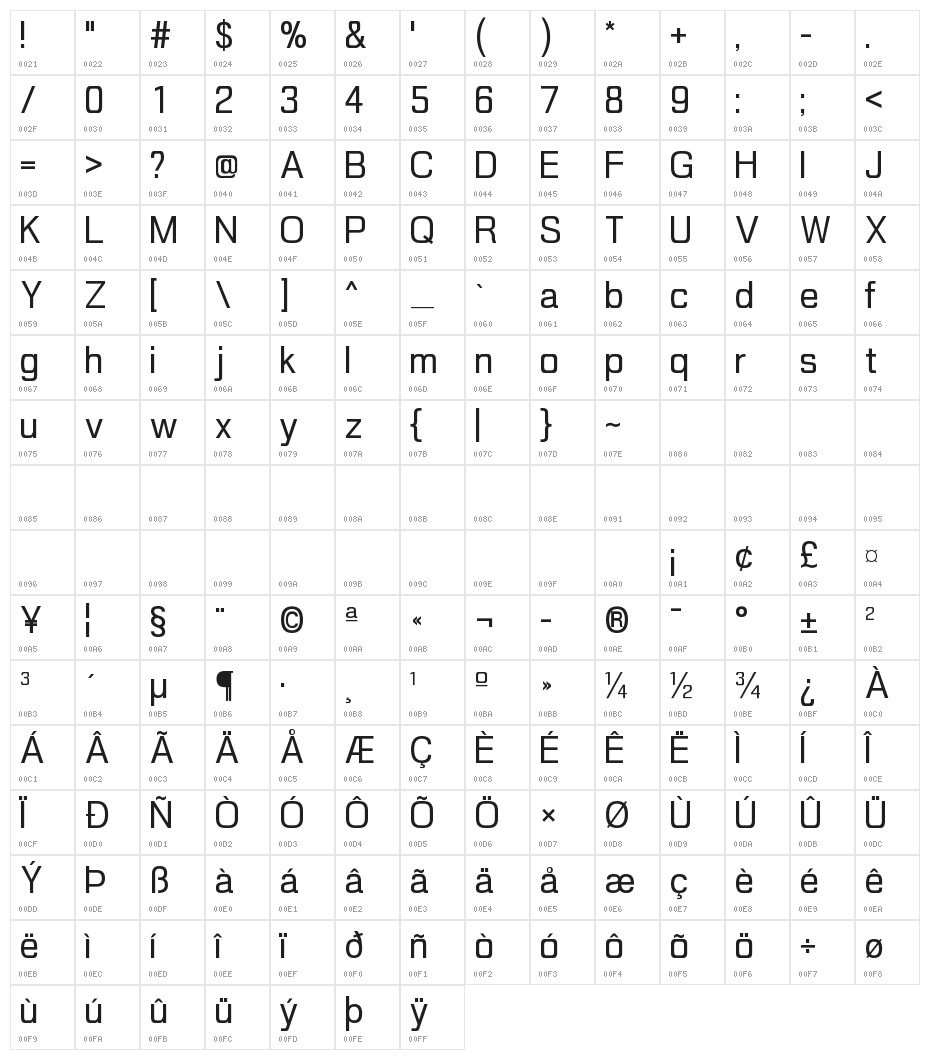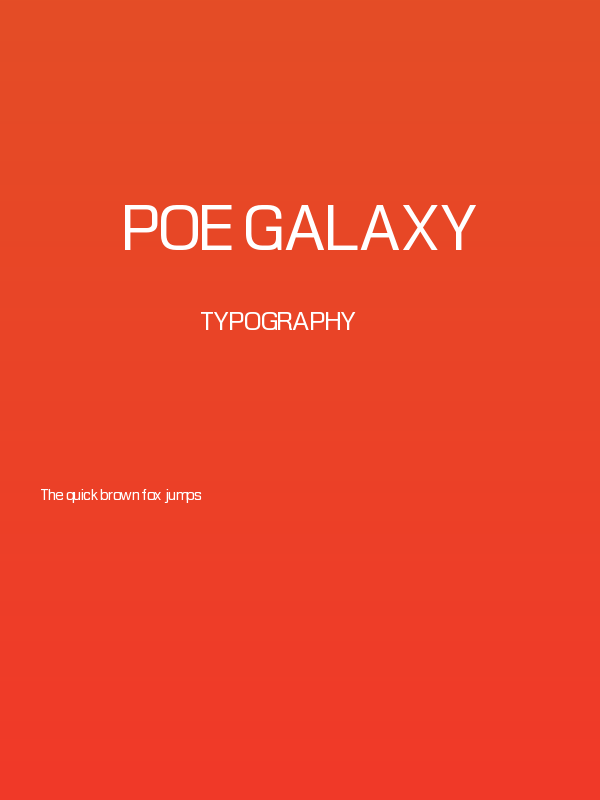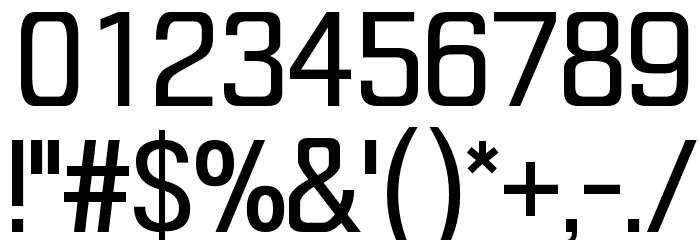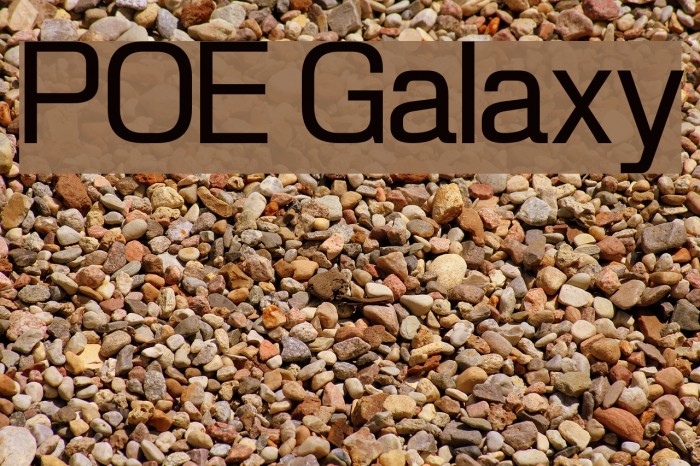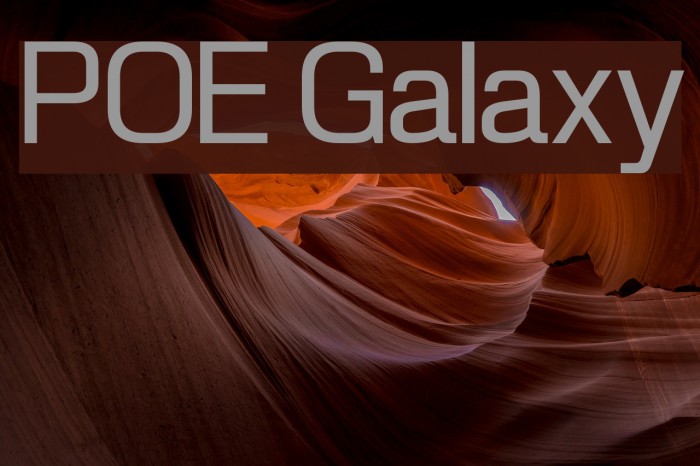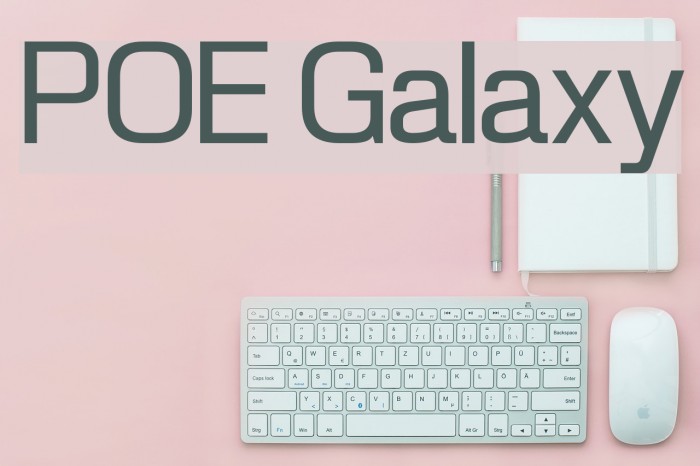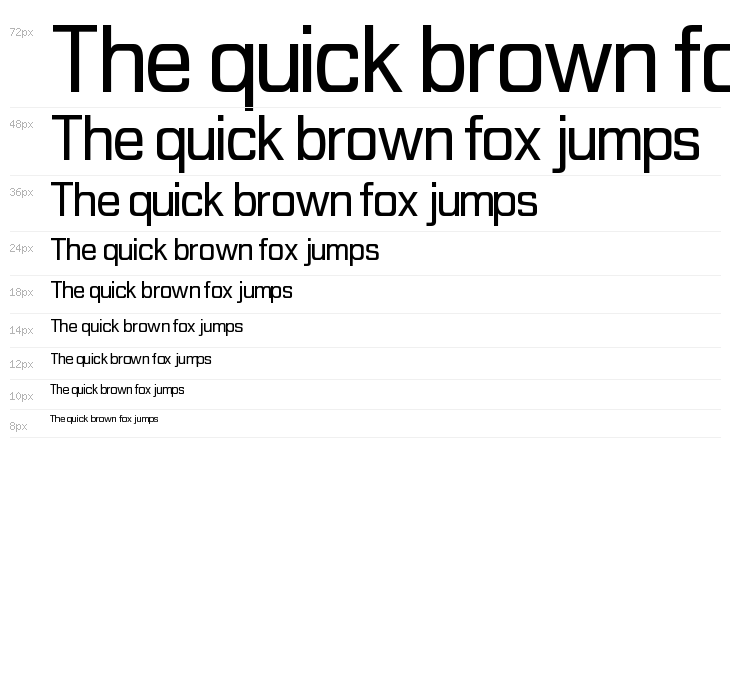
POE Galaxy Font
POE Galaxy Description
This font features a modern and sleek design with clean lines and a geometric structure. The uppercase letters are bold and assertive, while the lowercase letters maintain a consistent height and width, providing a harmonious balance. The numerals are clear and legible, making them suitable for various applications. Special characters are well-integrated, ensuring versatility in design projects. The overall appearance is contemporary, making it ideal for digital and print media. Its uniform stroke width and minimal contrast contribute to its readability and professional look.
| Use Case | Headlines, Logos, Digital interfaces |
| Proposed Projects | Ideal for branding, digital interfaces, advertising, and editorial design. |